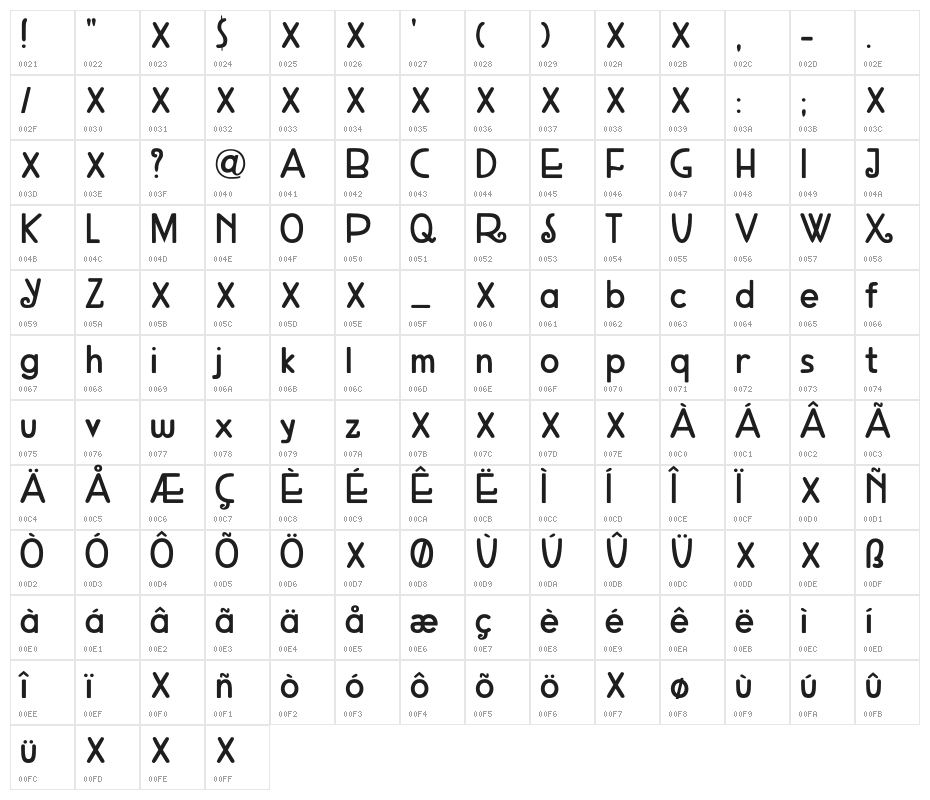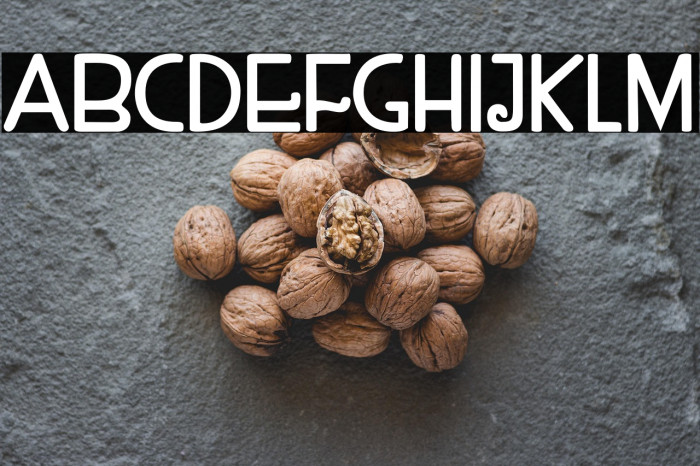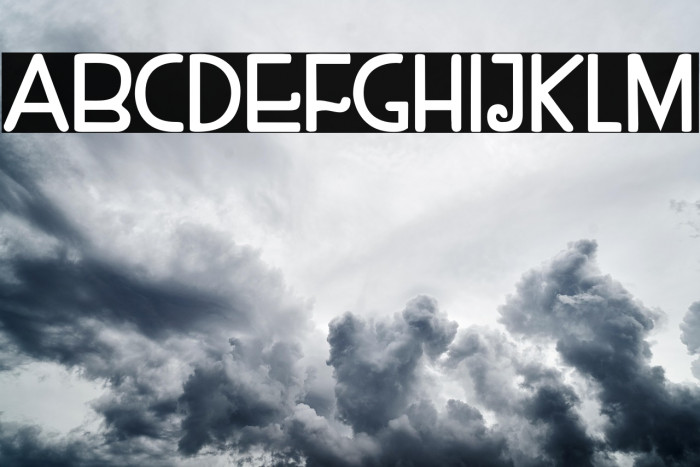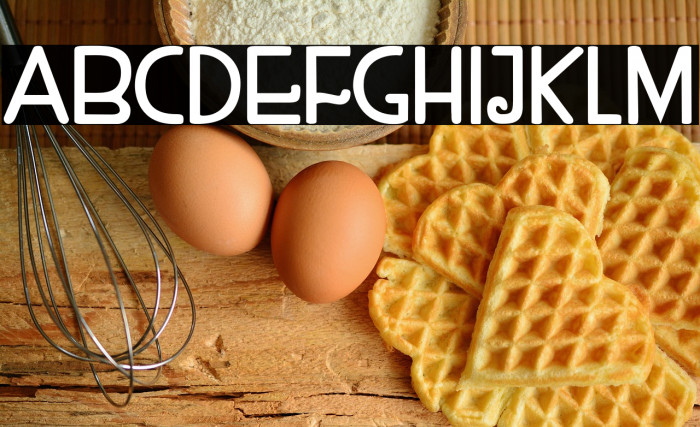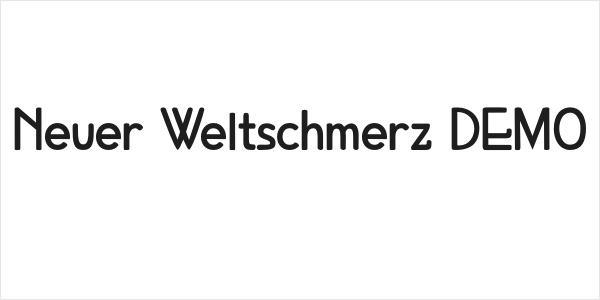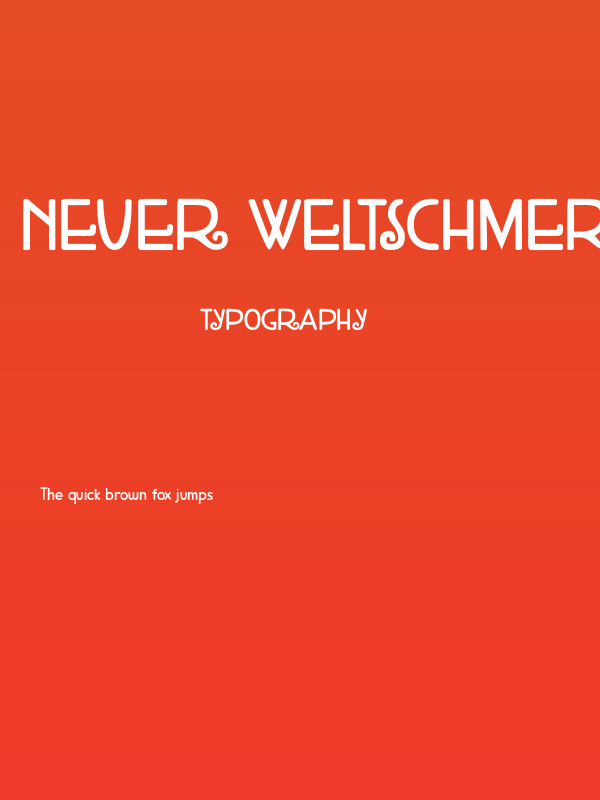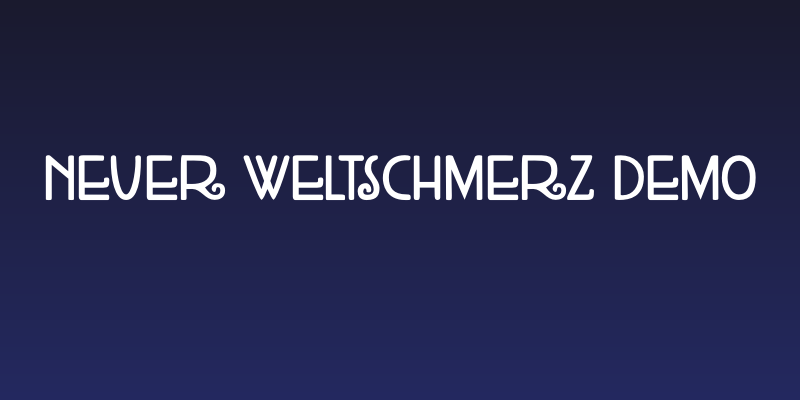
Neuer Weltschmerz DEMO Font
Neuer Weltschmerz DEMO Description
This font features a playful and whimsical design, characterized by its unique blend of clean lines and decorative elements. The uppercase letters are bold and slightly condensed, with some characters like 'Q' and 'R' incorporating elegant swirls that add a touch of flair. The lowercase letters maintain a consistent roundness, providing a friendly and approachable appearance. The numerals are straightforward and easy to read, while the special characters echo the playful nature of the font with their distinctive curves and loops. Overall, this font balances readability with artistic expression, making it suitable for a variety of creative projects.
| Proposed Projects | Ideal for children's books, creative branding, playful posters, and whimsical invitations. |